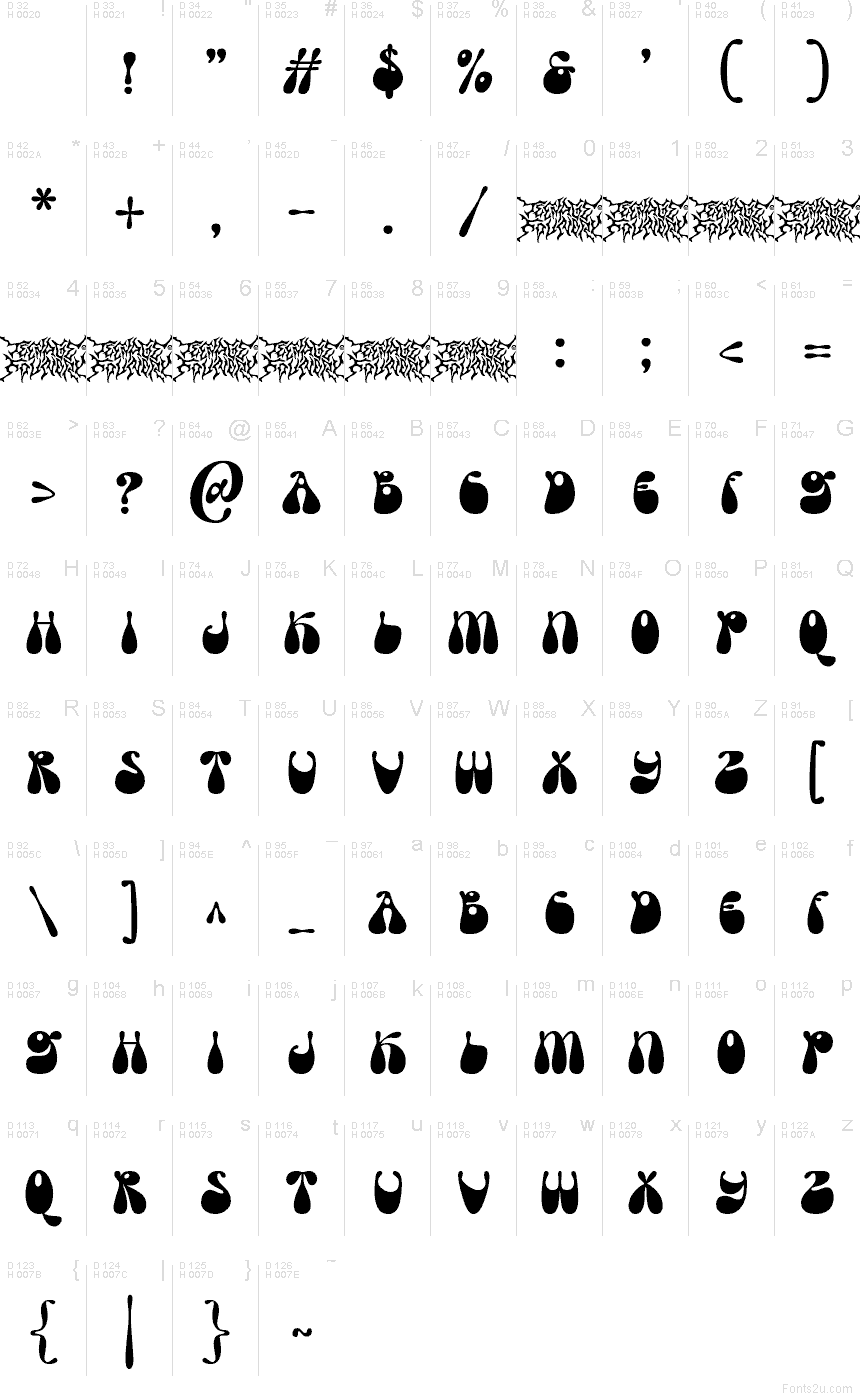
Teenage Gonabe Demo Regular
Teenage Gonabe font by Prio Nurokhim Aji of Teenage Foundry is a free groovy font, with bulbous, inky shapes that feel like they were squeezed from a soft vinyl stamp. Rounded counters and teardrop cut-ins create a bouncy rhythm, so even short words look like they’re dancing across the line.
Using Teenage Gonabe, you get instant ‘70s sweetness for poster titles, album art, sticker packs, café menus, youth event flyers, packaging labels, and social headers. Keep it roomy—let the letters breathe—and pair this free font with a clean, plain sans for body copy so the grooves stay loud without getting messy.